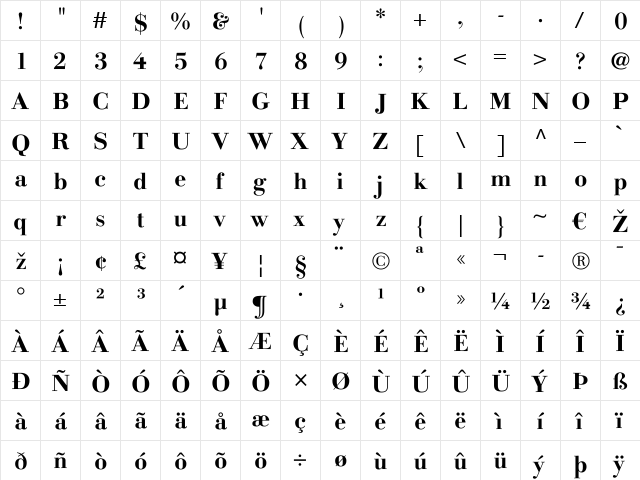
LTGianotten Light Bold
Design Context for LTGianotten Light Typeface
LTGianotten Light takes a measured approach to typography — its balanced proportions and neutral character make it a reliable workhorse for both digital and print work. Its bold stroke weight gives it real presence on the page.